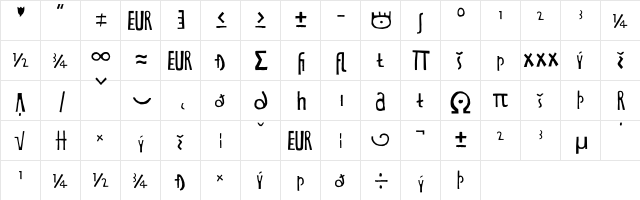
Kurt LightExpert Font Preview
Kurt LightExpert
Kurt LightExpert Font Details
Design Context for Kurt Typeface
Kurt offers clean, dependable letterforms without strong stylistic allegiance, making it a practical choice for designers who need flexibility. Its slender proportions lend an understated elegance to any composition.